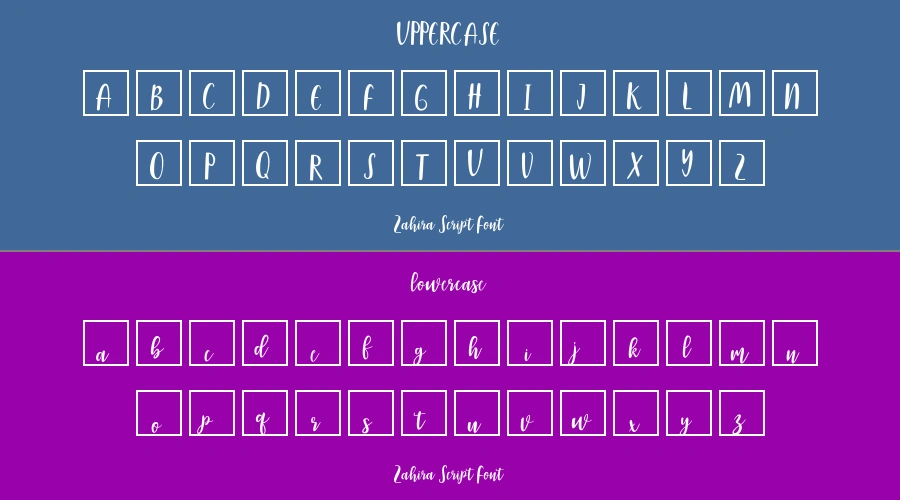
About Zahira Script Font
Zahira Script Font stands out for its distinctive combination of decorative elements and functionality. Ideal for mobile applications, it provides the adaptability and market appeal that professional projects demand. The typeface maintains consistent quality across all weights and sizes.
Key features include refined subtle details and practical contextual alternates, enhancing typographic expression. In warning labels applications, Zahira Script Font demonstrates exceptional OCR compatibility. The corner treatment and aspirational quality contribute to its distinctive character and professional appeal.